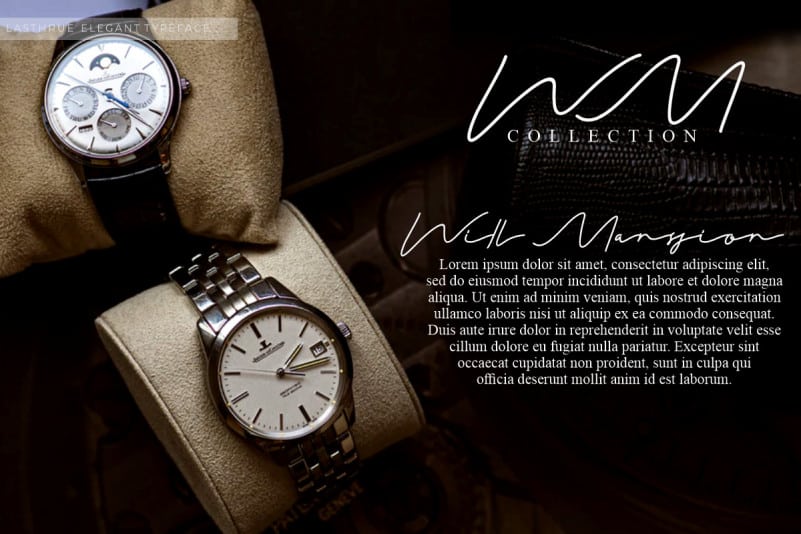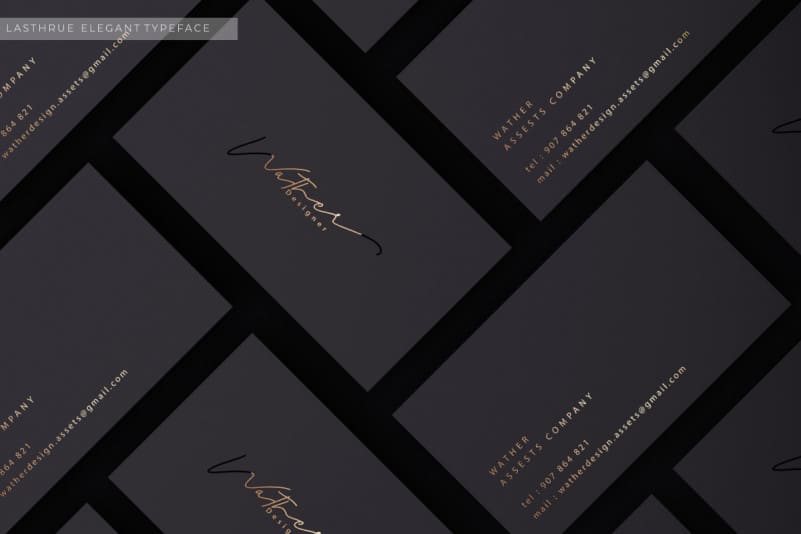
Lasthrue Signature Script Font
Lasthrue Signature Script Font is a signature style monoline font, with natural curves. Elegant and charming font. This signature font is perfect for weddings, watermarks, branding, business, business cards, product logos, etc.